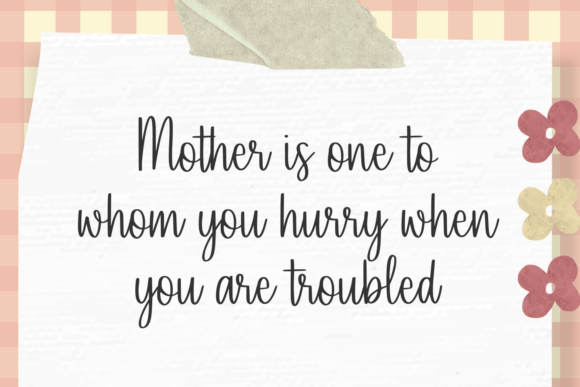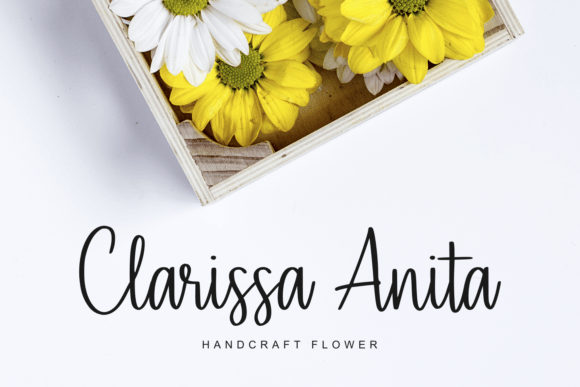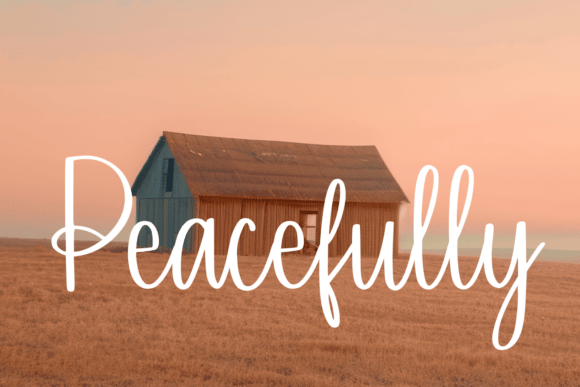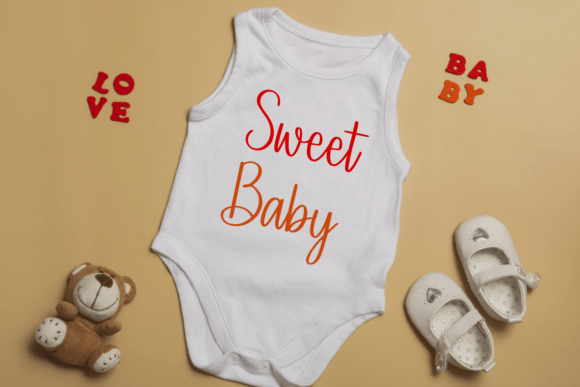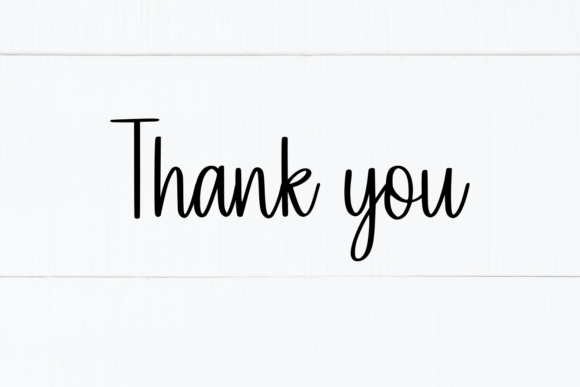
Introducing Discopastry Font: The Sweetest Addition to Your Design Toolbox
Are you tired of using the same old fonts in your designs? Do you want to add a touch of whimsy and personality to your projects? Look no further than the Discopastry font! This adorable handwritten script is the perfect way to bring a smile to your audience’s face and make your designs stand out from the crowd.
The Charm of Discopastry
Discopastry is a cute handwritten script that mixes playful energy with a sweet, homemade vibe. Its smooth curves and bouncy letters dance across the page like frosting on a freshly baked treat. The font’s unique charm lies in its ability to evoke feelings of joy and warmth, making it perfect for designs that need a friendly and approachable touch.
Perfect for a Variety of Designs
The Discopastry font is incredibly versatile and can be used in a wide range of design projects. Here are just a few ideas to get you started:
- Packaging: Add a touch of whimsy to your product packaging with Discopastry. Whether you’re designing labels for baked goods, cosmetics, or craft supplies, this font is sure to make your products stand out on store shelves.
- Quotes and Posters: Use Discopastry to add a playful touch to your inspirational quotes and posters. The font’s bouncy letters and smooth curves will make your messages feel more approachable and fun.
- Invitations: Make your invitations feel more personal and special with Discopastry. Whether you’re planning a birthday party, wedding, or baby shower, this font is sure to set the tone for a fun and celebratory event.
Easy to Customize
- Add swashes and flourishes: Use the font’s built-in swashes and flourishes to add a touch of elegance and sophistication to your designs.
- Alternate characters: Switch out characters to create a unique look that reflects your brand’s personality.
- Access glyphs: Use the font’s glyphs to add special characters and symbols to your designs.
Why Designers and Crafters Love Discopastry
So, why do designers and crafters love the Discopastry font? Here are just a few reasons:
- Fun and playful: Discopastry adds a touch of whimsy and fun to any design, making it perfect for projects that need a lighthearted touch.
- Easy to read: Despite its playful nature, Discopastry is incredibly easy to read, making it perfect for designs that need to communicate a message.
Get Ready to Add a Touch of Joy to Your Designs